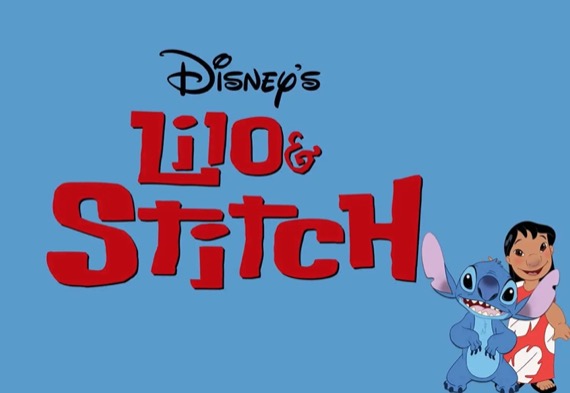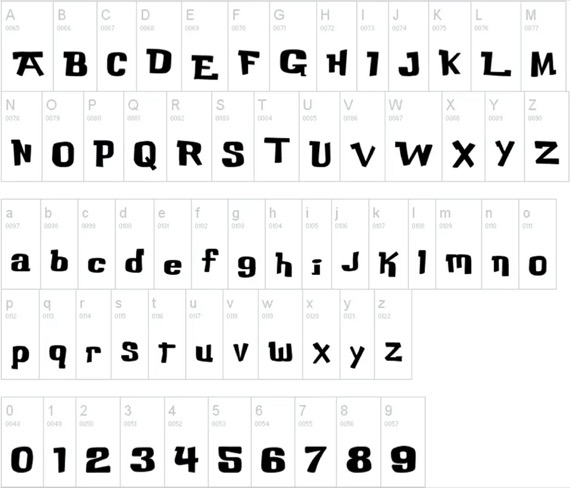
Introducing Lilo and Stitch Font. This logo typeface has a tropical and playful feel. It reflects the Hawaiian setting of the story from Disney about a young Hawaiian girl named Lilo who befriends an unusual alien creature named Stitch. This story is very heartwarming and was introduced in an animated film that debuted in 2002. This film explores themes of family, friendship, and acceptance, and it’s known for its unique and lovable characters.
The letters have a rounded and slightly whimsical design, with a casual and friendly vibe. It will complement the overall tone of the movie, adding to its charm. The font used to design the Lilo and Stitch is Buka Bird by Steve Ferrera.
Lilo and Stitch Logo Font